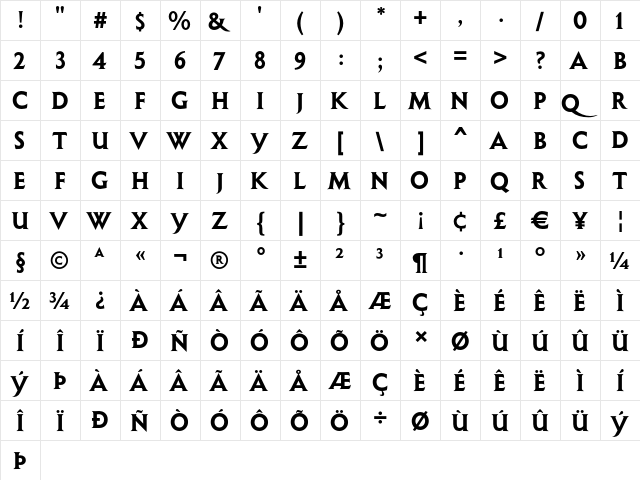
ShangoGothic ExtraBold
Design Context for ShangoGothic Typeface
ShangoGothic has the quiet confidence of well-executed sans-serif typography: versatile, unobtrusive, and dependable at any size. Its bold stroke weight gives it real presence on the page.
Well-suited to navigation labels, product packaging, and anywhere legibility at scale is essential.
Font Pairing: Use ShangoGothic for headlines alongside a lighter-weight sans or serif for body copy to establish clear visual hierarchy.
Pro Tip: Use ShangoGothic for UI labels, navigation, and short-form body copy where clean legibility is the priority.